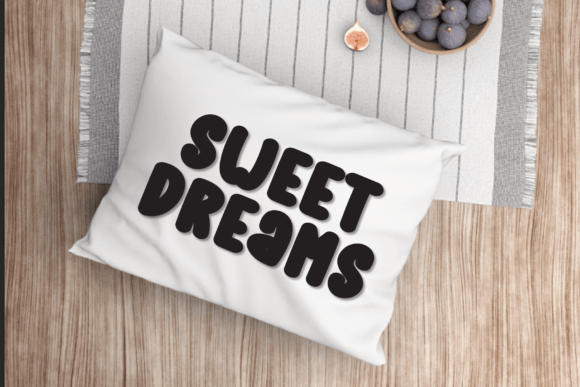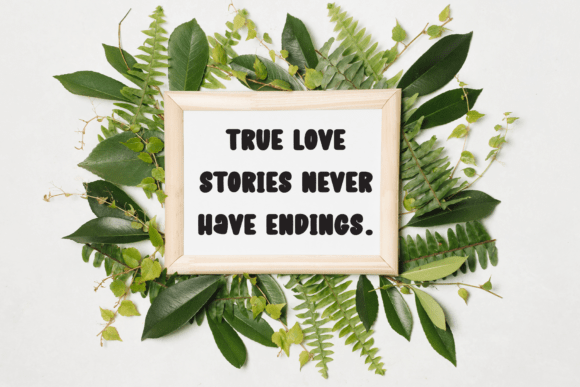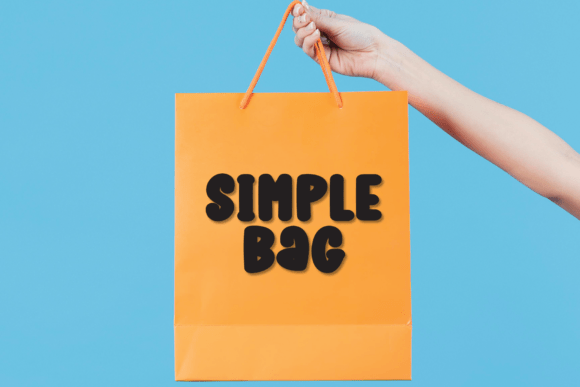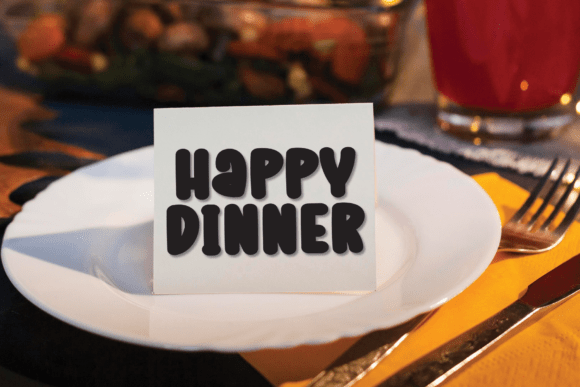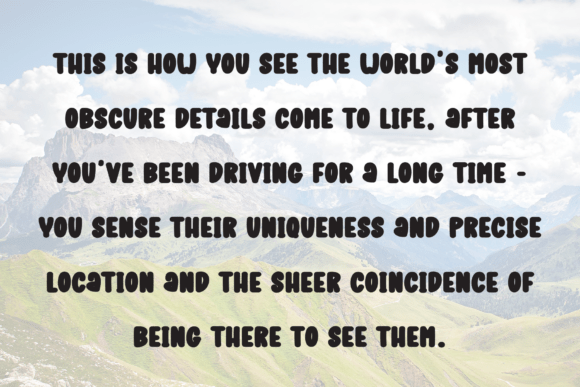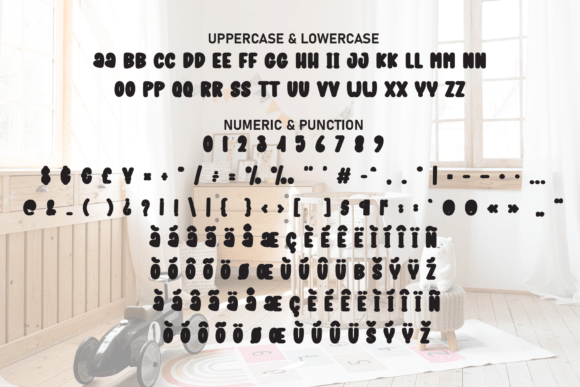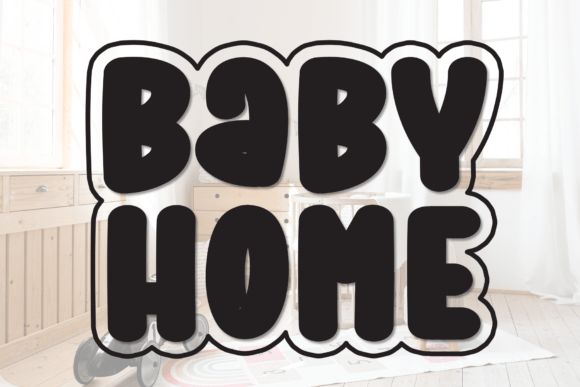
Baby Home Font: The Perfect Blend of Modern Simplicity and Playful Charm
In the world of typography, fonts play a crucial role in conveying the tone and personality of a brand or design. For designers and crafters looking for a font that exudes a sense of modern simplicity and playful charm, Baby Home Font is an excellent choice. This casual display font has been gaining popularity for its unique blend of clean shapes, soft edges, and well-balanced letterforms that capture the essence of relaxed design while maintaining clarity and style.
What is Baby Home Font?
Baby Home Font is a carefully crafted display font that is perfect for a wide range of design applications, including posters, branding, packaging, and social media graphics. Its modern simplicity and playful vibe make it an ideal choice for designers who want to add a fresh and friendly touch to their projects. The font’s clean shapes and soft edges give it a distinctive look that is both eye-catching and easy to read.
Key Features of Baby Home Font
So, what makes Baby Home Font stand out from other fonts? Here are some of its key features:
- Clean Shapes: The font features clean and simple shapes that give it a modern and sleek look.
- Soft Edges: The soft edges of the font add a touch of playfulness and approachability.
- Well-Balanced Letterforms: The font’s letterforms are well-balanced, making it easy to read and understand.
- Versatile Character: Baby Home Font has a versatile character that makes it suitable for a wide range of design applications.
- Eye-Catching Appeal: The font’s unique design makes it eye-catching and perfect for grabbing the attention of your audience.
Uses of Baby Home Font
Baby Home Font is a versatile font that can be used for a variety of design applications, including:
- Posters: The font’s bold and playful design makes it perfect for creating eye-catching posters.
- Branding: Baby Home Font can be used to create a unique and memorable brand identity.
- Packaging: The font’s clean and modern design makes it suitable for packaging design.
- Social Media Graphics: The font’s playful and approachable vibe makes it perfect for creating engaging social media graphics.
Benefits of Using Baby Home Font
So, why should you choose Baby Home Font for your design projects? Here are some of the benefits of using this font:
- Readability: The font’s clean design and well-balanced letterforms make it easy to read and understand.
- Personality: Baby Home Font adds a touch of personality and playfulness to your design projects.
- Versatility: The font’s versatile character makes it suitable for a wide range of design applications.
- Uniqueness: The font’s unique design makes it stand out from other fonts and helps you create a memorable brand identity.
In conclusion, Baby Home Font is a unique and versatile font that is perfect for designers and crafters looking for a modern and playful font. Its clean shapes, soft edges, and well-balanced letterforms make it easy to read and understand, while its eye-catching appeal makes it perfect for grabbing the attention of your audience. With its wide range of uses and benefits, Baby Home Font is an excellent choice for any design project.
Whether you’re creating posters, branding materials, packaging, or social media graphics, Baby Home Font is a great choice. Its modern simplicity and playful charm make it a font that can be used in a variety of contexts, from formal to informal. So, why not give Baby Home Font a try and see how it can elevate your design projects?